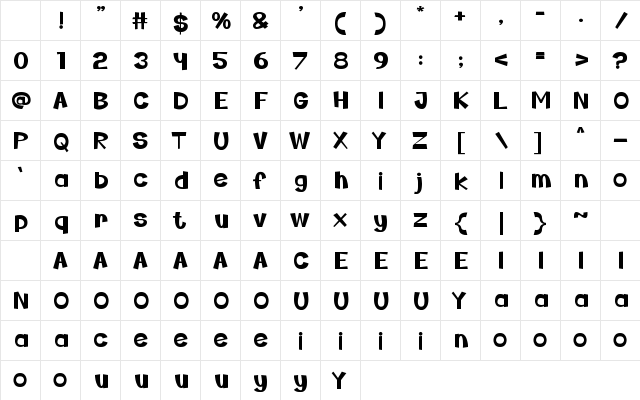
Complete Green-Town Regular glyph index. Displaying only characters natively supported by Green-Town Regular font.
Green-Town is a composed and adaptable typeface that performs quietly and consistently across a wide range of design contexts.
Pro Tip: Use Green-Town in both headline and body roles to test its range before committing to a single application.